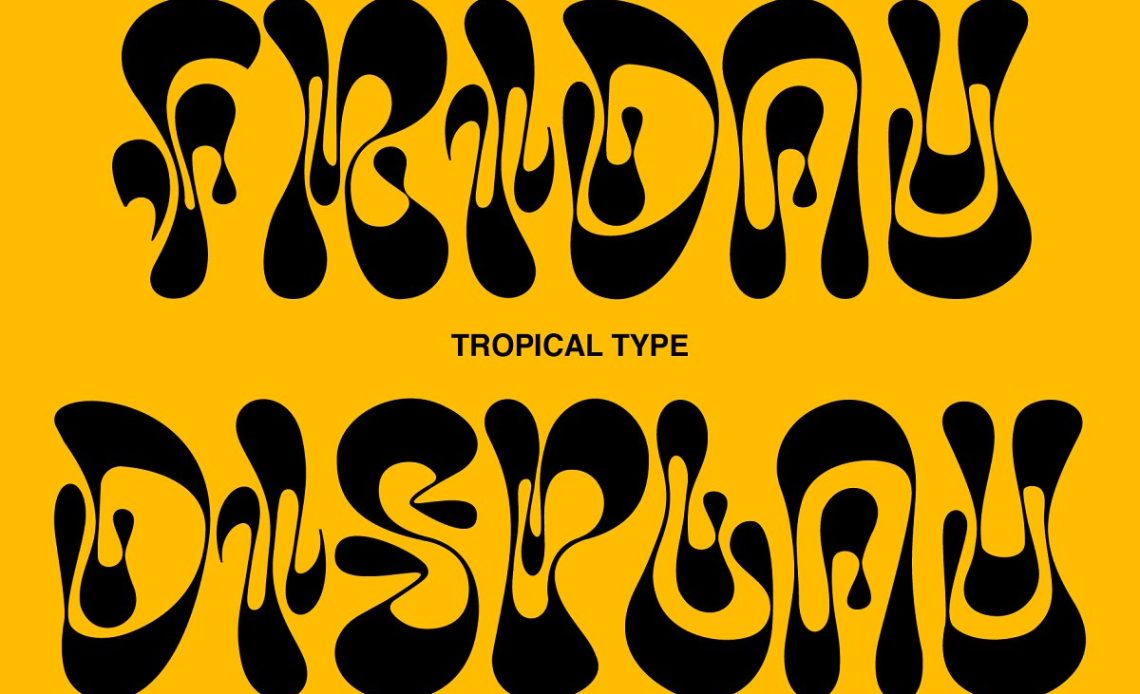
Friday Display is a Trip. You’re not going to write a novel with this font, I will tell you that but… if you want something seriously psychedelic thats part art and part font, then this is the font for you. Using it sparingly to mix and match with a clean sans serif or go all out for a good time. Enjoy
Non English glyphs included:
Ą Á  À Ä Å Ã Æ Ć Ç Ę É Ê È Ë Í Î Ì Ï Ł Ń Ñ Ó Ô Ò Ö Õ Ø Œ Ś Š Ú Û Ù Ü Ý Ÿ Ź Ż